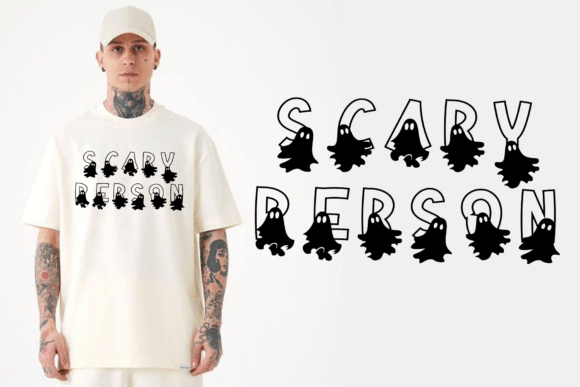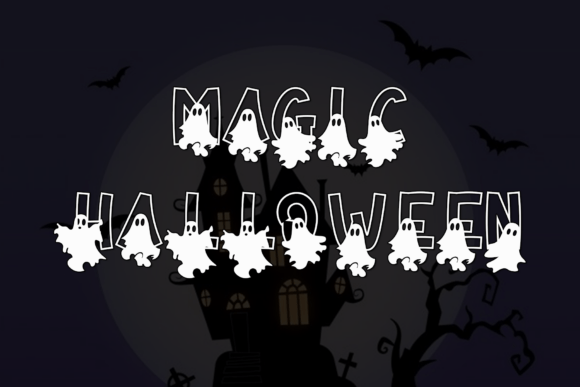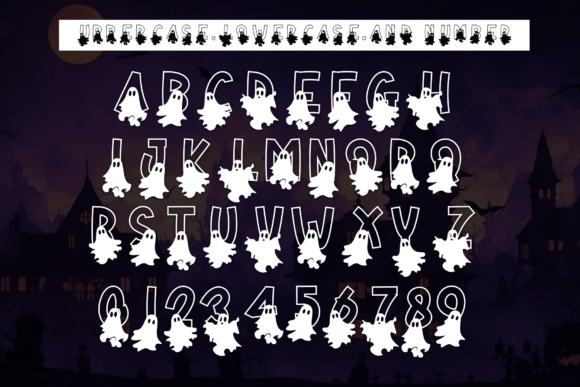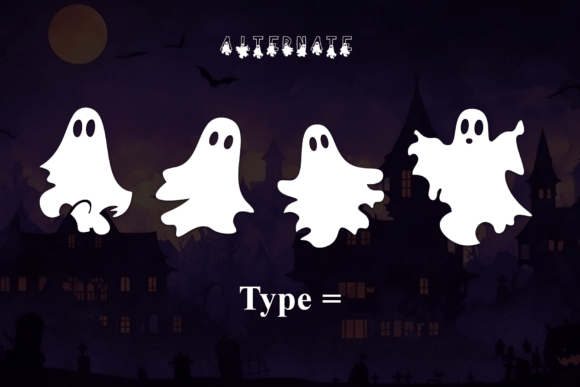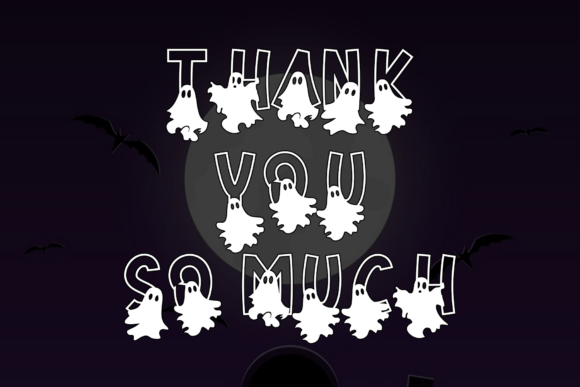
The Spooky Charm of Ghost Night Font: A Designer’s Delight
I’ll never forget the Halloween project that had me scratching my head, desperately searching for the perfect font. My client wanted a spooky yet fun design for their Halloween party invitation, and I was determined to deliver. That’s when I stumbled upon Ghost Night Font, a gem that added a cool, creepy touch to my design. In this article, I’ll share my experience with Ghost Night Font, its features, and how to make the most of it in your designs.
A Personal Review: What I Love and What to Watch Out For
- Ghost Night Font is a decorative font that’s perfect for Halloween projects, adding a spooky yet fun touch to your designs.
- Its unique and quirky style sets it apart from other fonts, making it a great addition to your font collection.
- The font comes with a range of OpenType features, glyphs, and stylistic alternates, giving you plenty of creative options.
- Ghost Night Font may not be suitable for body text due to its decorative nature; it’s best used for headlines or titles.
- Some characters may not work well in smaller sizes, so be sure to test the font before finalizing your design.
- The font’s uniqueness may not appeal to everyone’s taste, but that’s what makes it special for those who love it.
Ghost Night Font was inspired by the spooky and mystical atmosphere of Halloween. The designer wanted to create a font that captured the essence of the holiday, with a touch of playfulness and whimsy. The result is a unique and quirky font that’s perfect for adding a cool, creepy touch to your designs.
Q: What type of projects is Ghost Night Font best suited for?
A: Ghost Night Font is perfect for Halloween-themed projects, such as party invitations, flyers, and social media graphics.
Q: Is Ghost Night Font available in different styles or variations?
A: Yes, Ghost Night Font comes with various OpenType features, glyphs, and stylistic alternates, allowing you to experiment with different styles and variations.